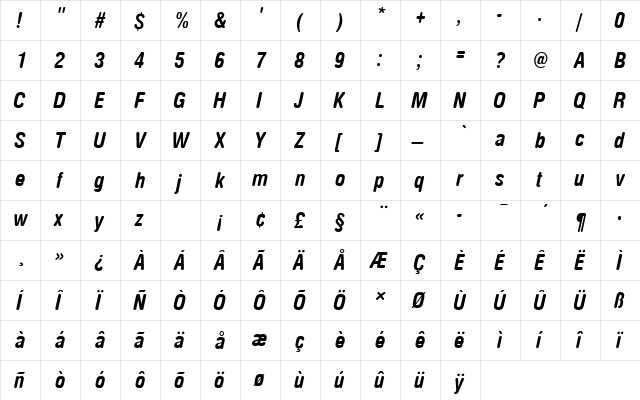
NimbusSanDBolConItaRo1 Regular Font Preview
NimbusSanDBolConItaRo1 Regular
NimbusSanDBolConItaRo1 Regular Font Details
Design Context for NimbusSanDBolConItaRo1 Typeface
NimbusSanDBolConItaRo1 offers clean, dependable letterforms without strong stylistic allegiance, making it a practical choice for designers who need flexibility.